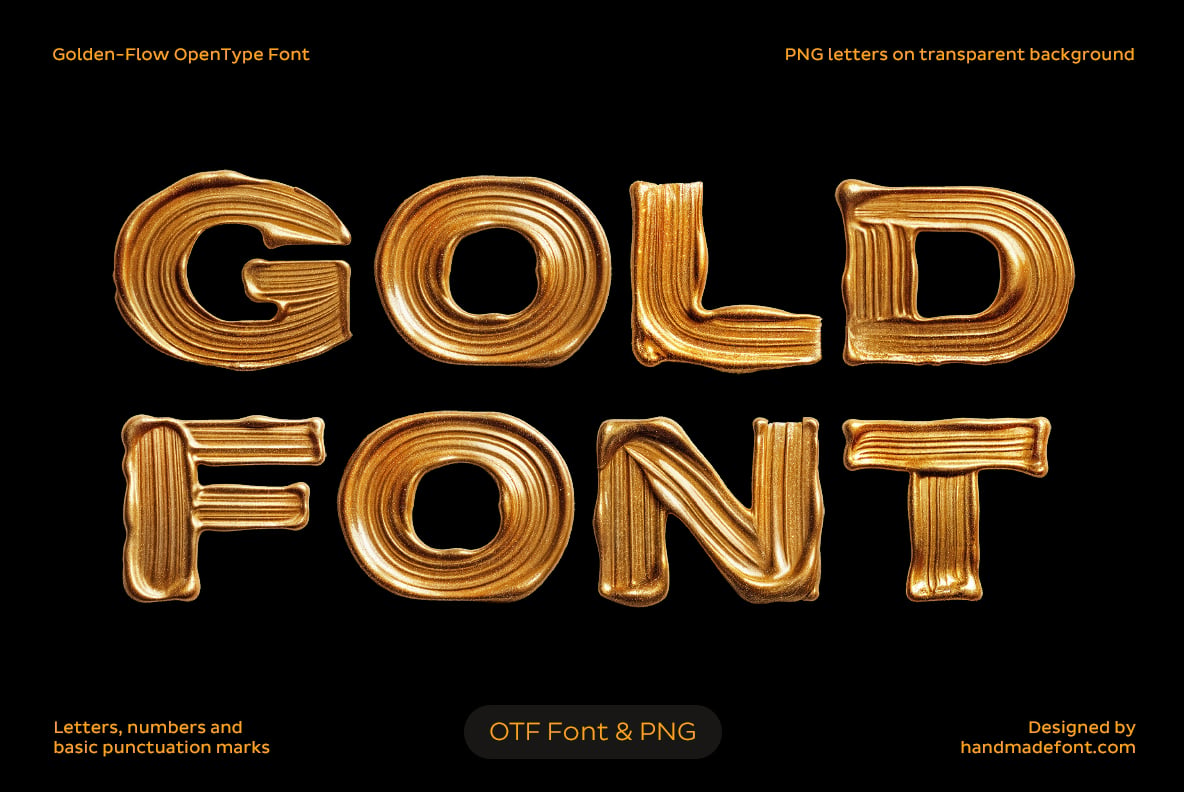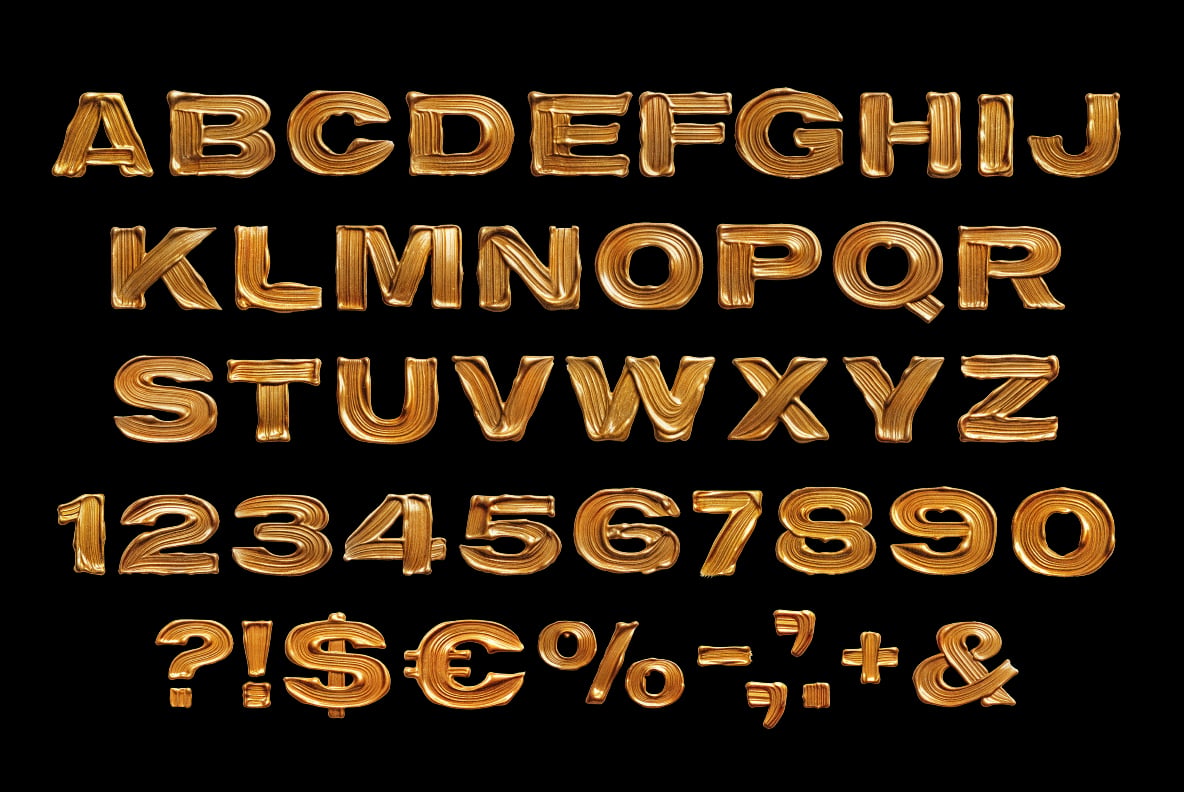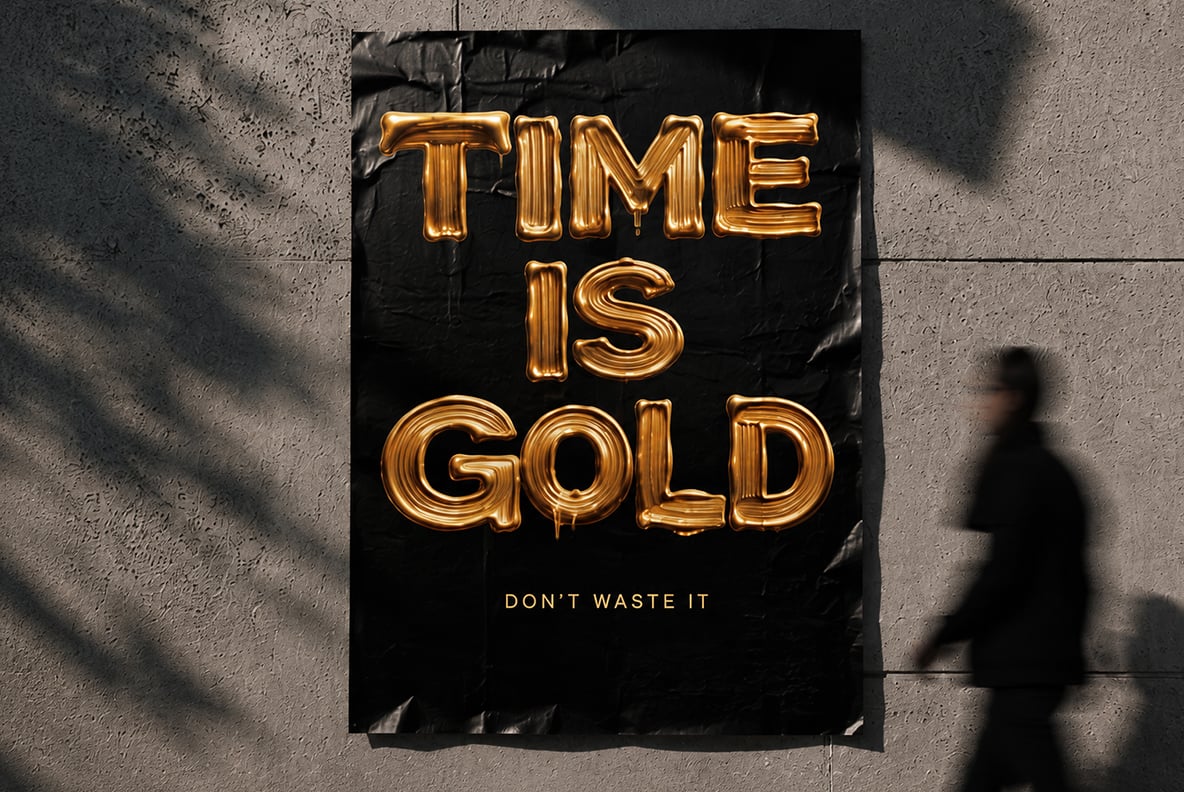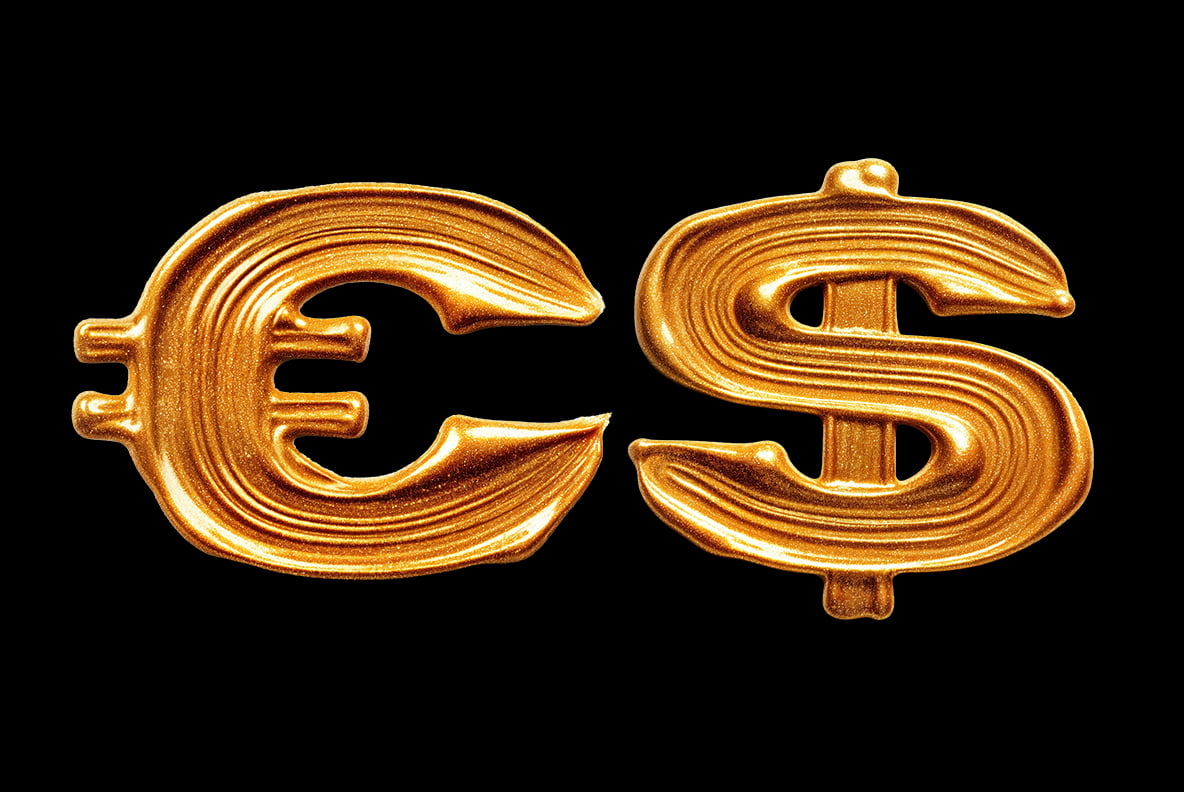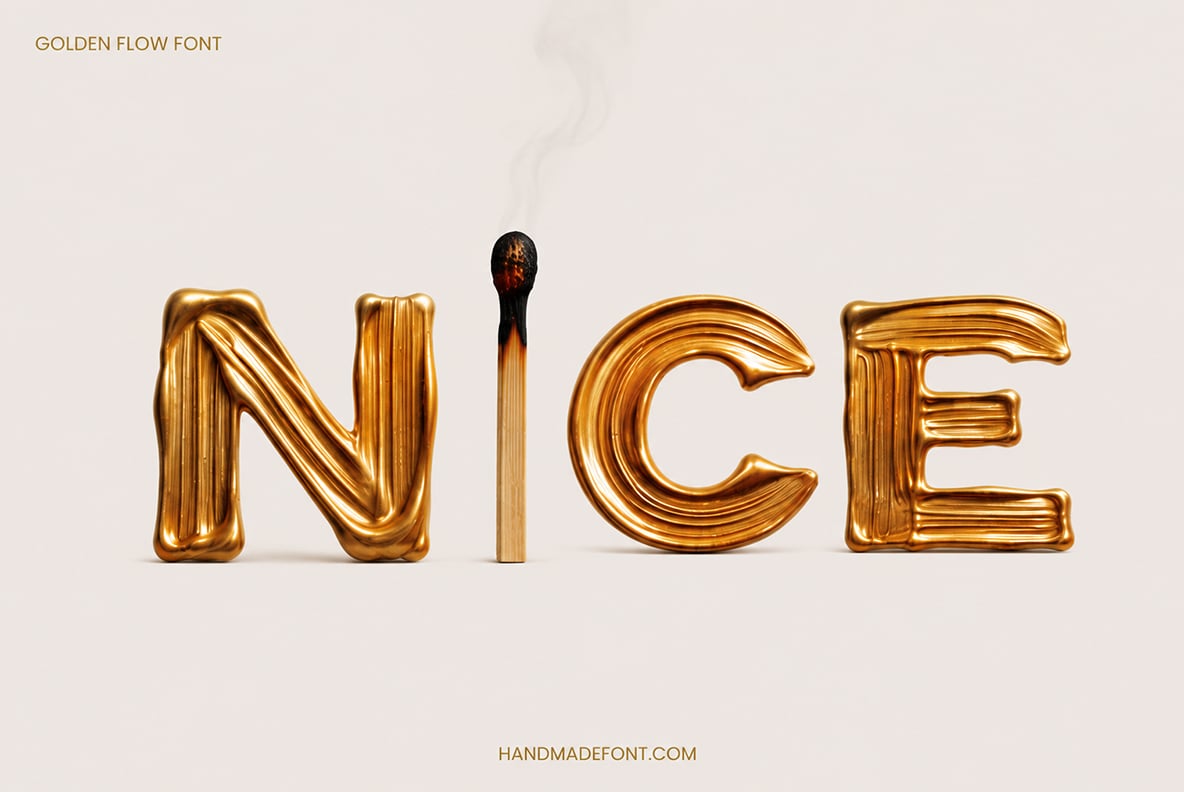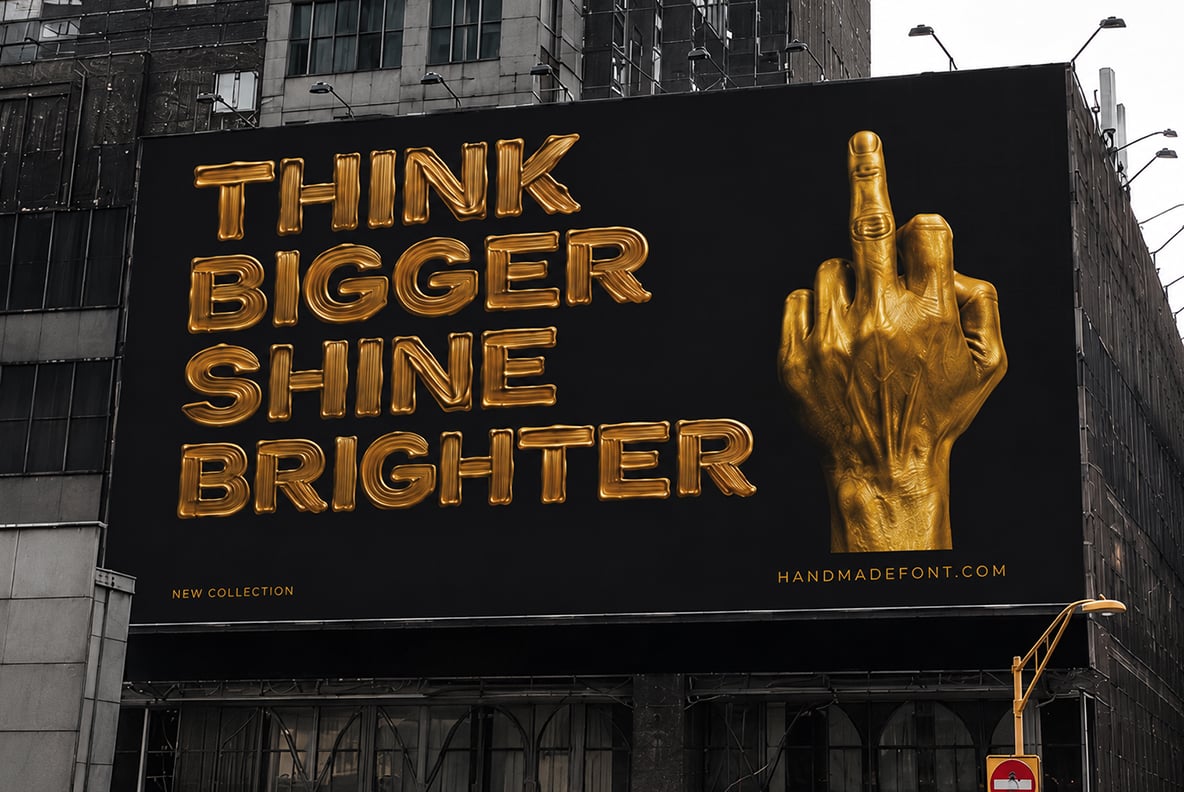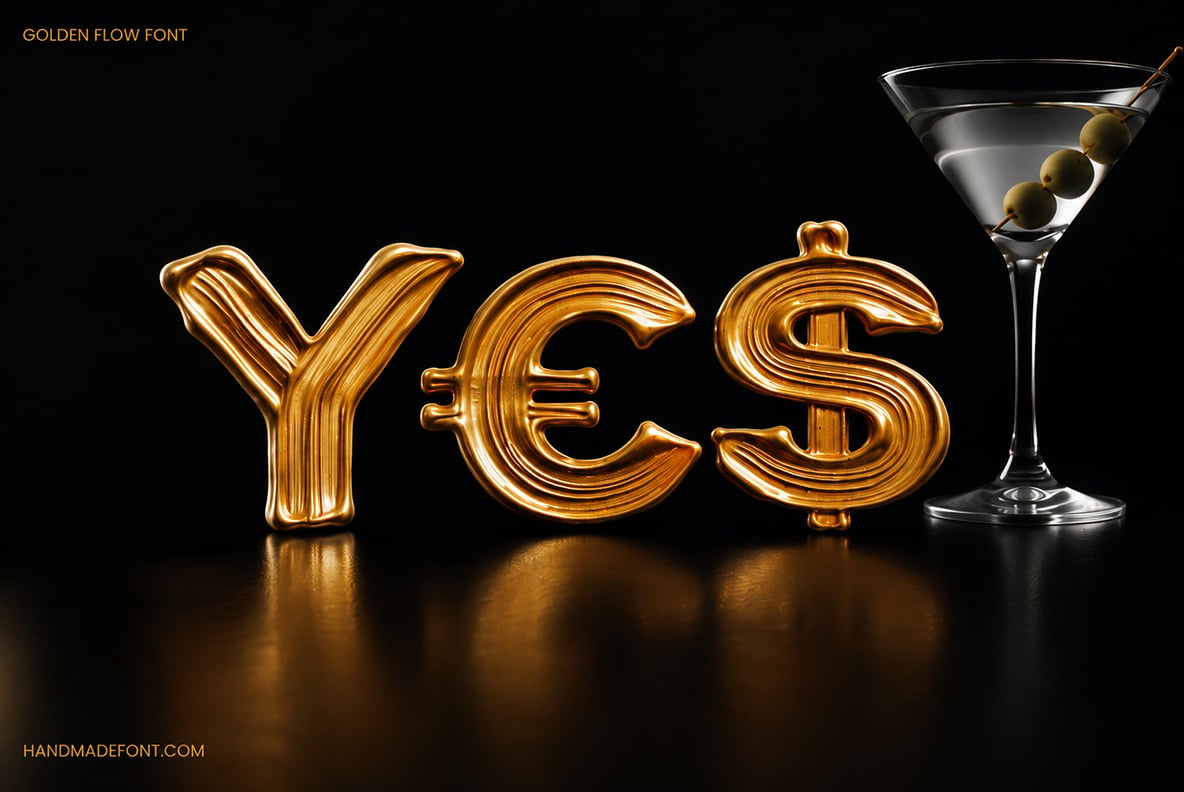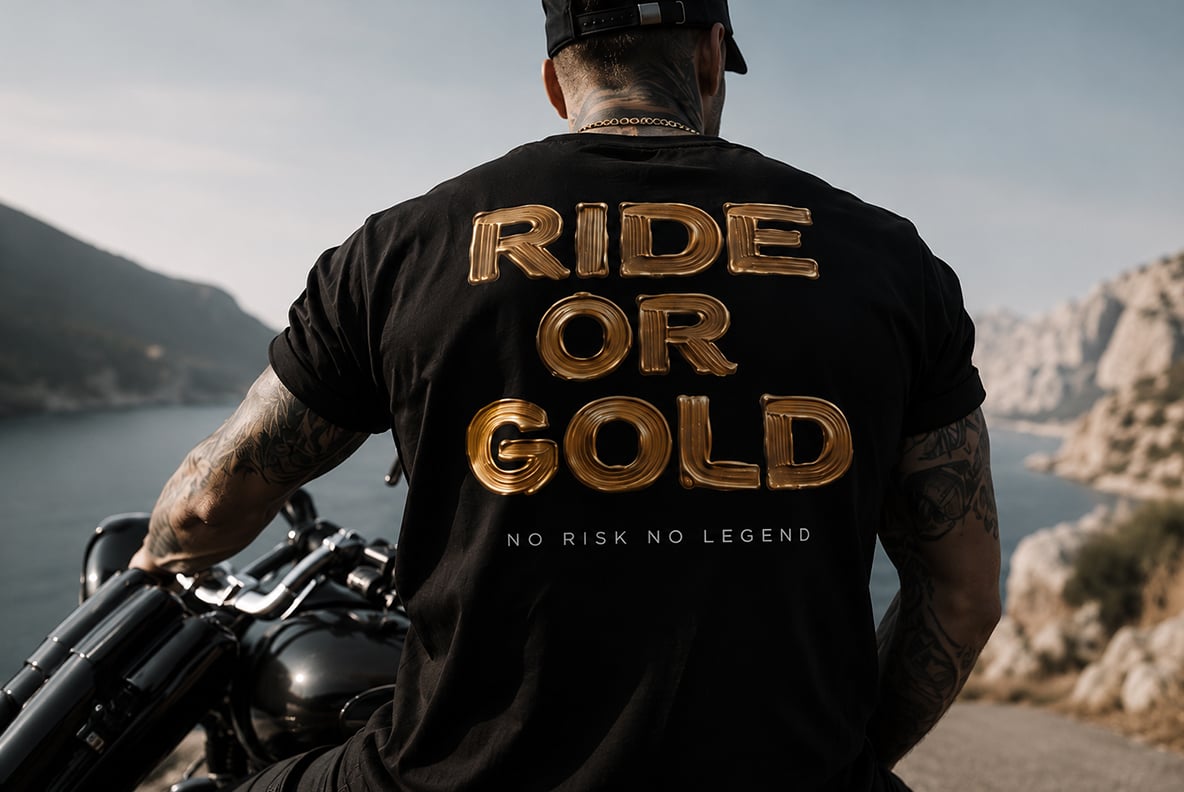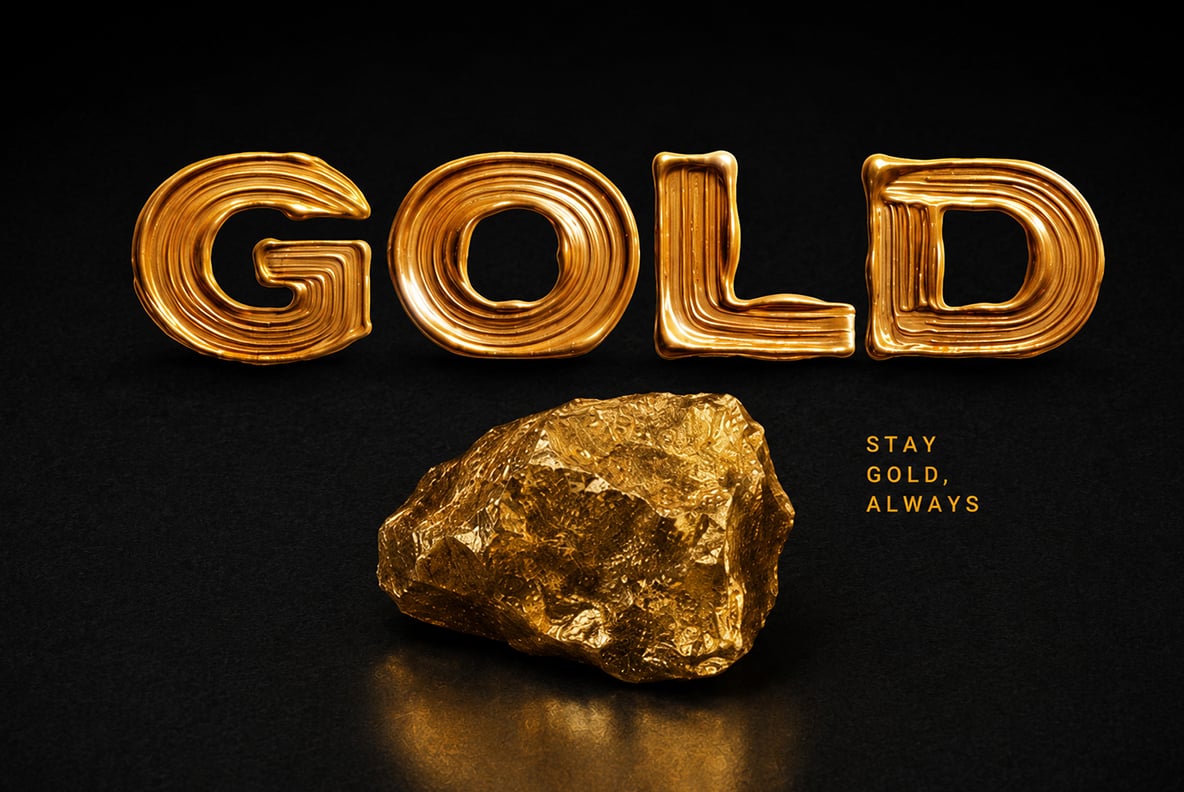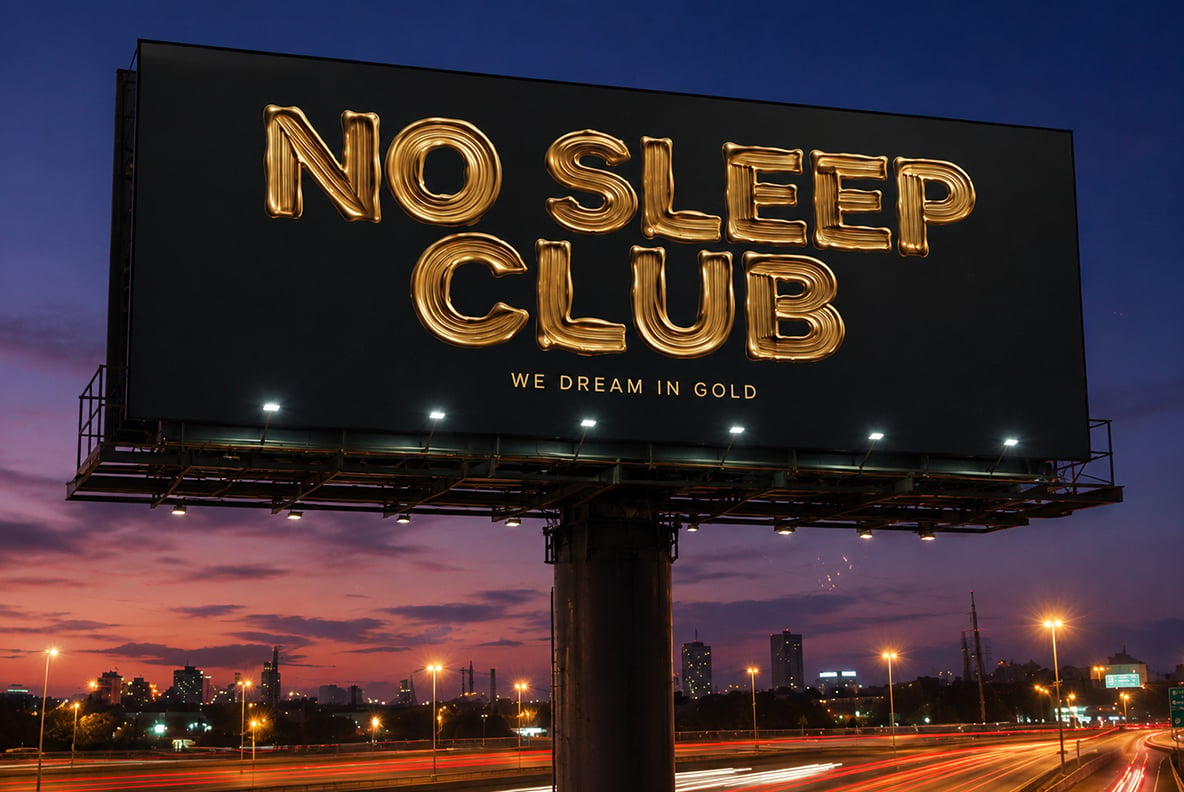
Golden Flow Font
Golden Flow Font is a luxurious handcrafted typeface inspired by the fluid movement of molten gold. Every character features rich metallic textures, smooth flowing strokes, and bold sculptural forms that instantly attract attention. The package includes a fully functional OpenType (OTF) font for effortless typing, along with high-resolution PNG files of every individual letter, number, and symbol on a transparent background for maximum creative flexibility. Perfect for premium branding, luxury packaging, fashion campaigns, posters, social media, logos, invitations, advertising, and editorial design. Golden Flow Font combines elegance, warmth, and contemporary style, allowing designers to create eye-catching compositions with a sophisticated, modern golden aesthetic.